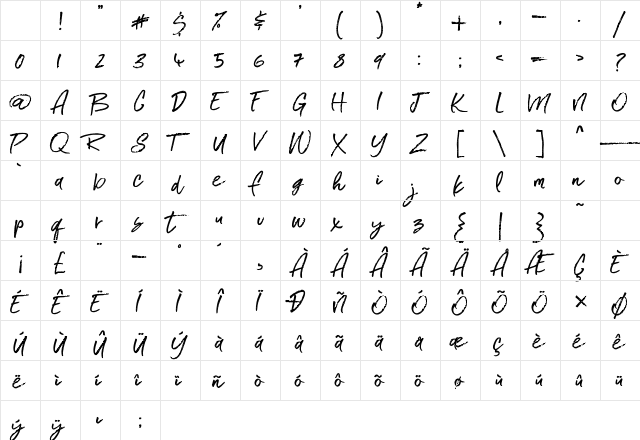
Serial Catch Black Regular Free Font
Serial Catch Black Regular
Serial Catch Black Family
Complete Serial Catch Black Regular glyph index. Displaying only characters natively supported by Serial Catch Black Regular font.
Design Context for Serial Catch Black
Serial Catch Black is a composed and adaptable typeface that performs quietly and consistently across a wide range of design contexts.